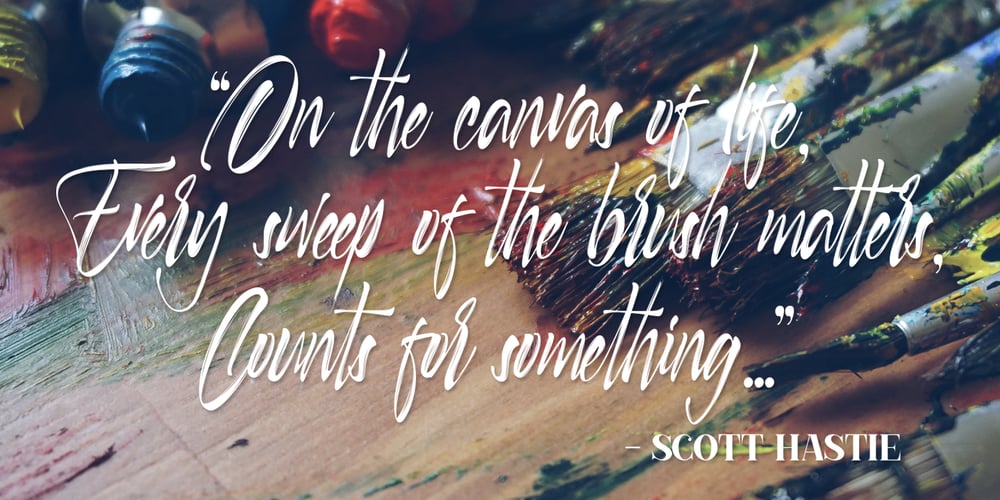
Selfakia Font Family was designed by Satriyo Hutomo and published by Muntab Art. Selfakia contains 1 styles and family package options. Selfakia is a Hand Brush font, perfect for logo design, branding, clothing design, signage, posters, wedding invitations and so much more! Also many more alternative characters, with 70+ ligature. In order to use the beautiful swashes, you need a program that supports OpenType features such as Adobe Illustrator CS, Adobe Photoshop CC, Adobe Indesign and Corel Draw. To access the swash type _1 _2 _3 _4 _5 Please contact us if you have any question, we are happy to help you! Thank you! Do you want a custom logo design? Contact me at muntabart@gmail.com Or you can also contact me on Instagram @muntab_ar